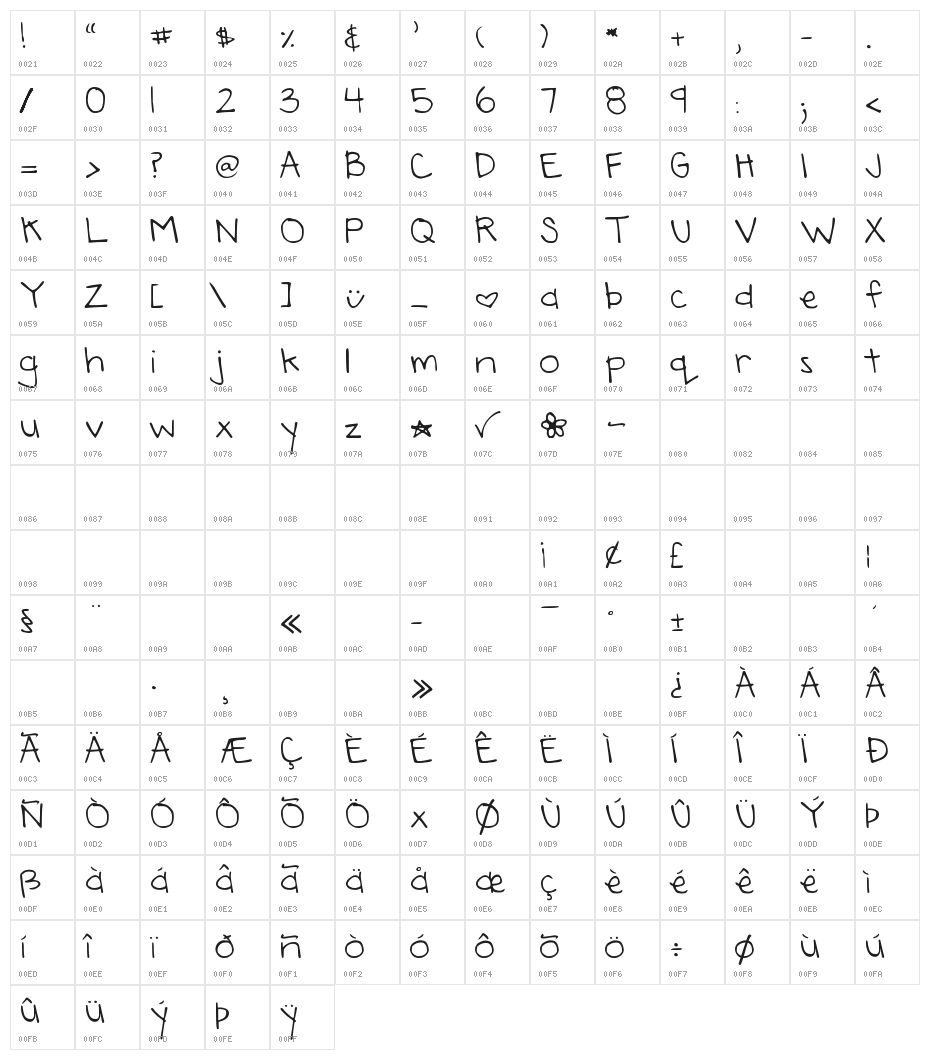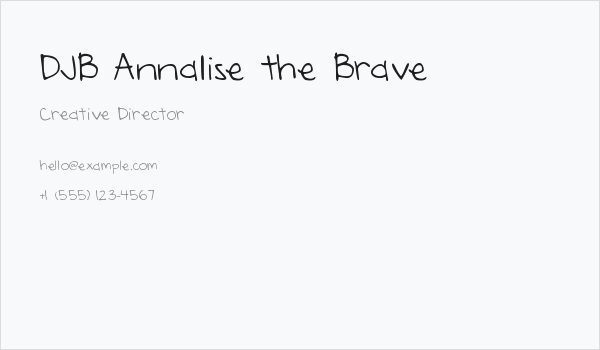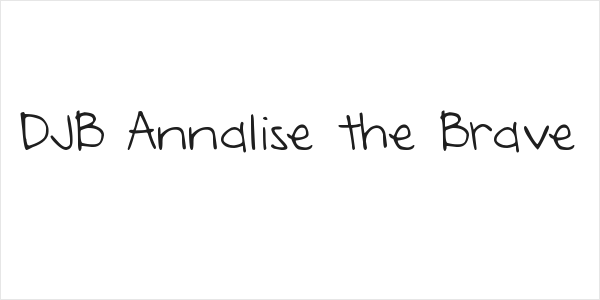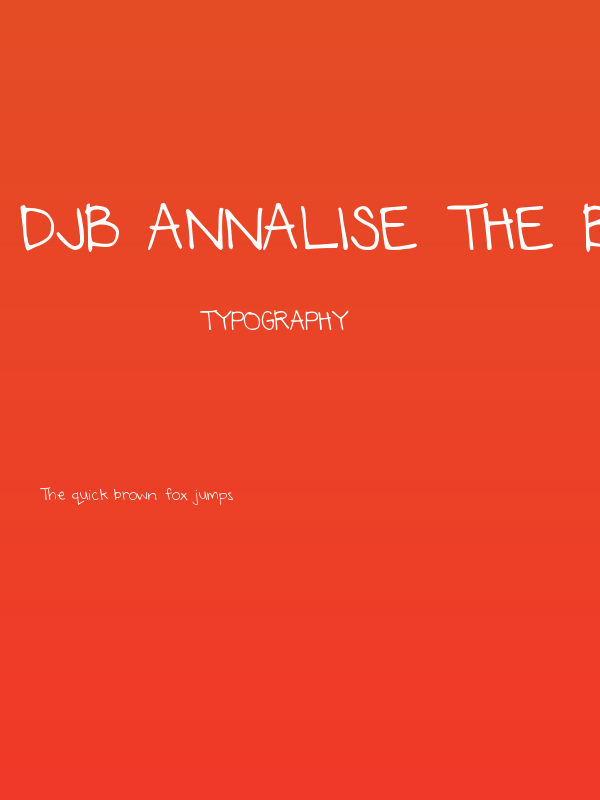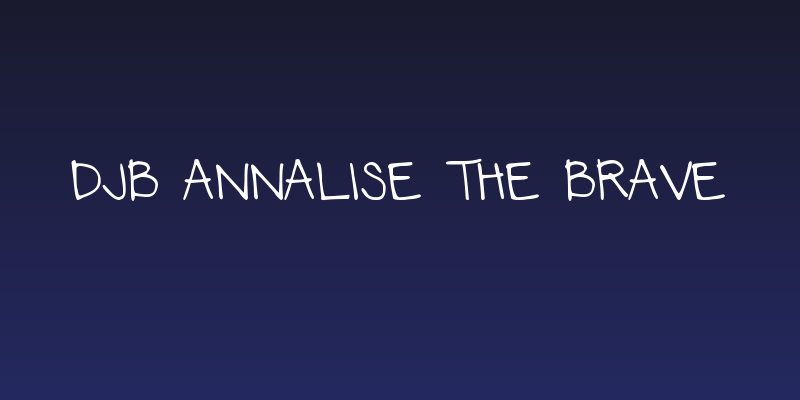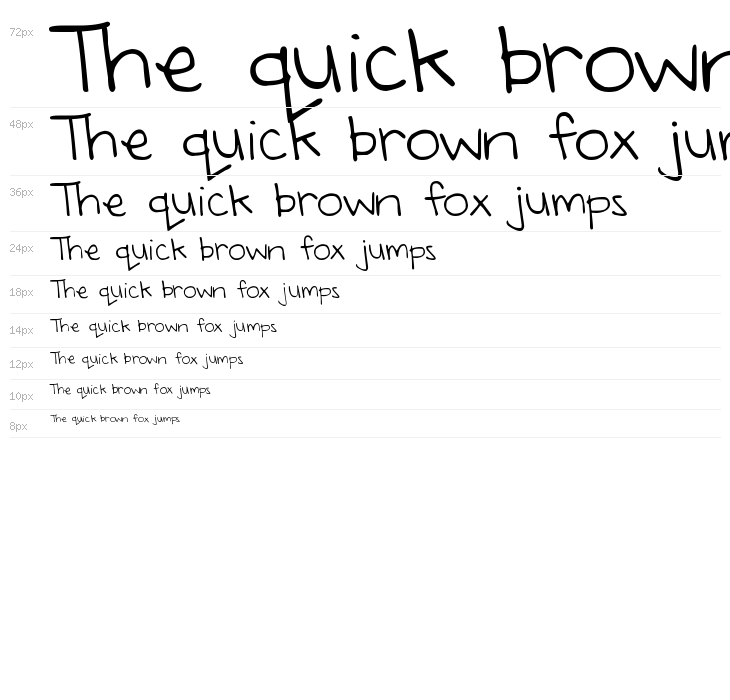
DJB Annalise the Brave Font
DJB Annalise the Brave Description
| Proposed Projects | Ideal for children's books, greeting cards, playful branding, and creative projects that require a personal touch. |